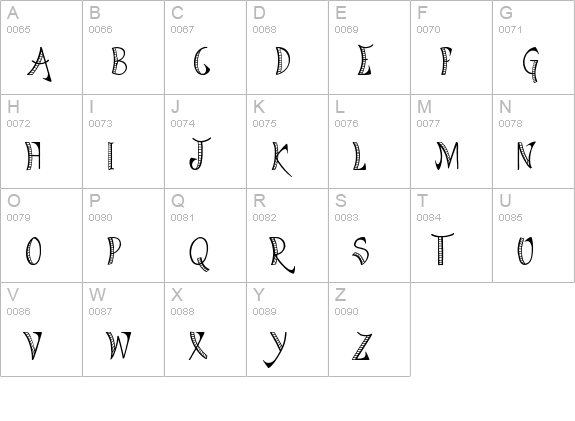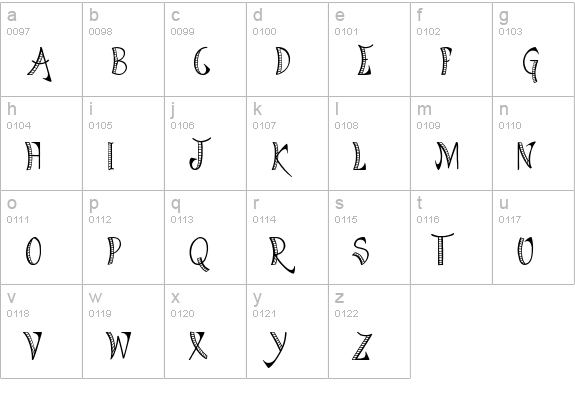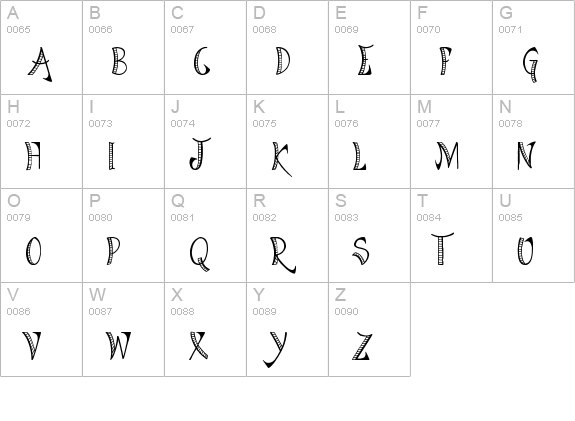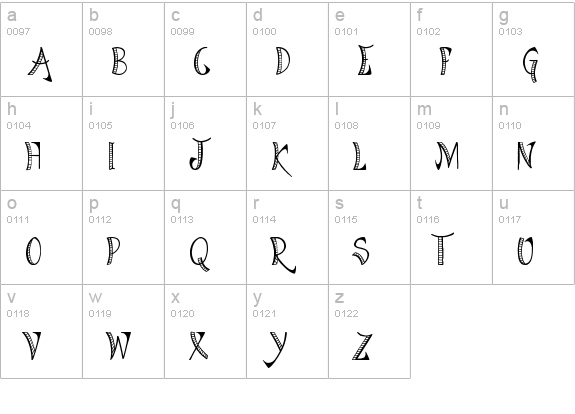
Ladies Night Font Details
Ladies Night font is a stunning and elegant typeface that exudes femininity and sophistication. With its delicate curves and graceful strokes, this font is perfect for adding a touch of elegance to any project. Whether you're designing invitations for a ladies' night event, creating a logo for a fashion brand, or crafting beautiful social media graphics, Ladies Night font is sure to impress. This font is not only visually appealing, but it also offers a wide range of versatility. From bold and eye-catching headlines to subtle and elegant body text, Ladies Night font can be used for a variety of design purposes. Its clean and legible letterforms ensure readability, while its unique and stylish details add a touch of personality. But what makes Ladies Night font even more appealing is that it is free! Yes, you read that right. This amazing font is freely available to download at FontsMarket.com. Now you can enhance your designs with this beautiful typeface without breaking the bank. Downloading Ladies Night font is quick and easy. Simply visit FontsMarket.com, search for Ladies Night font, and click the download button. Once you have the font file, you can install it on your computer and start using it in your favorite design software. Whether you're a professional designer or a beginner, this font is accessible to all. So why wait? Give your designs a touch of elegance and femininity with Ladies Night font. Download it for free at FontsMarket.com and let your creativity shine!